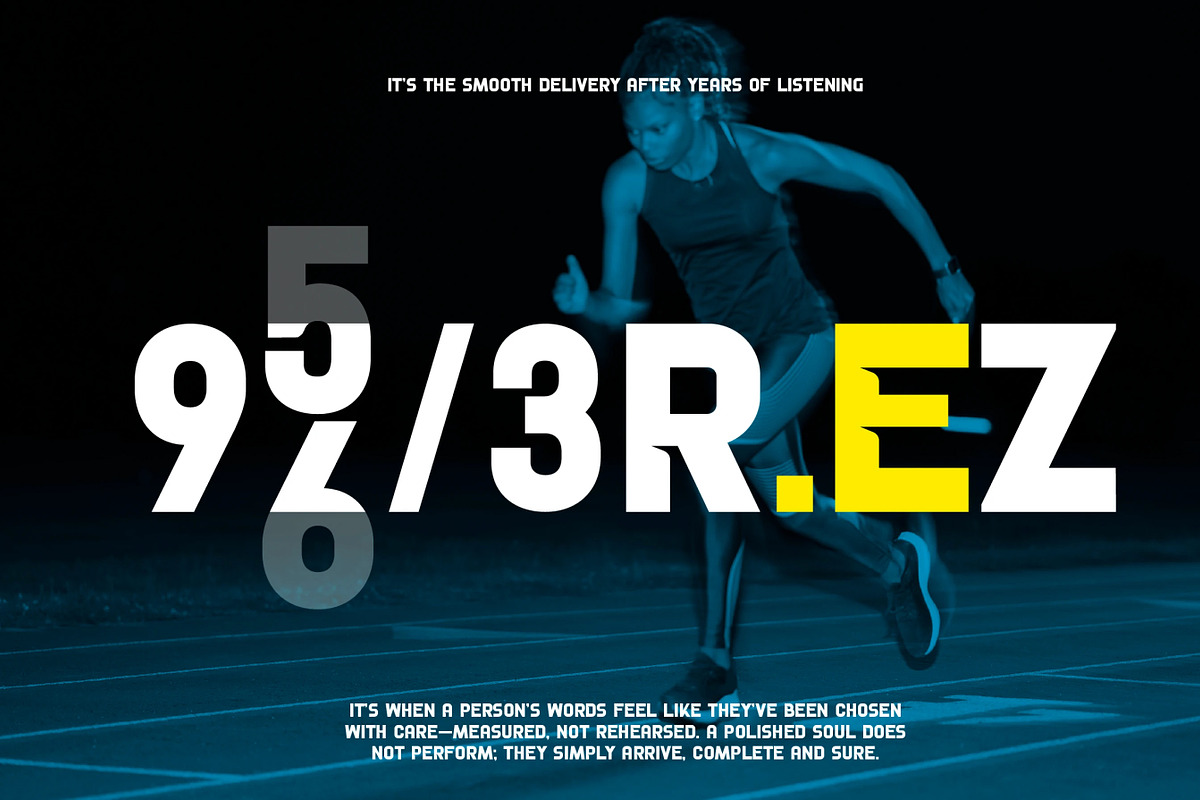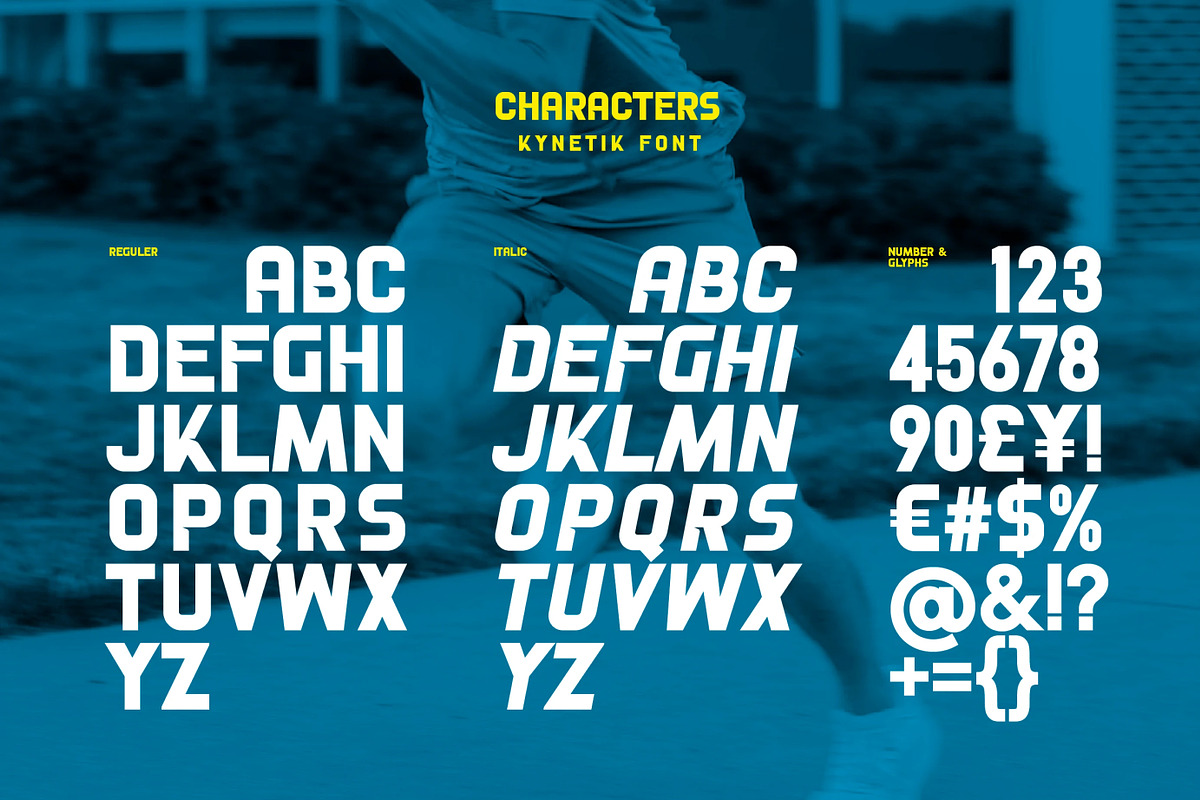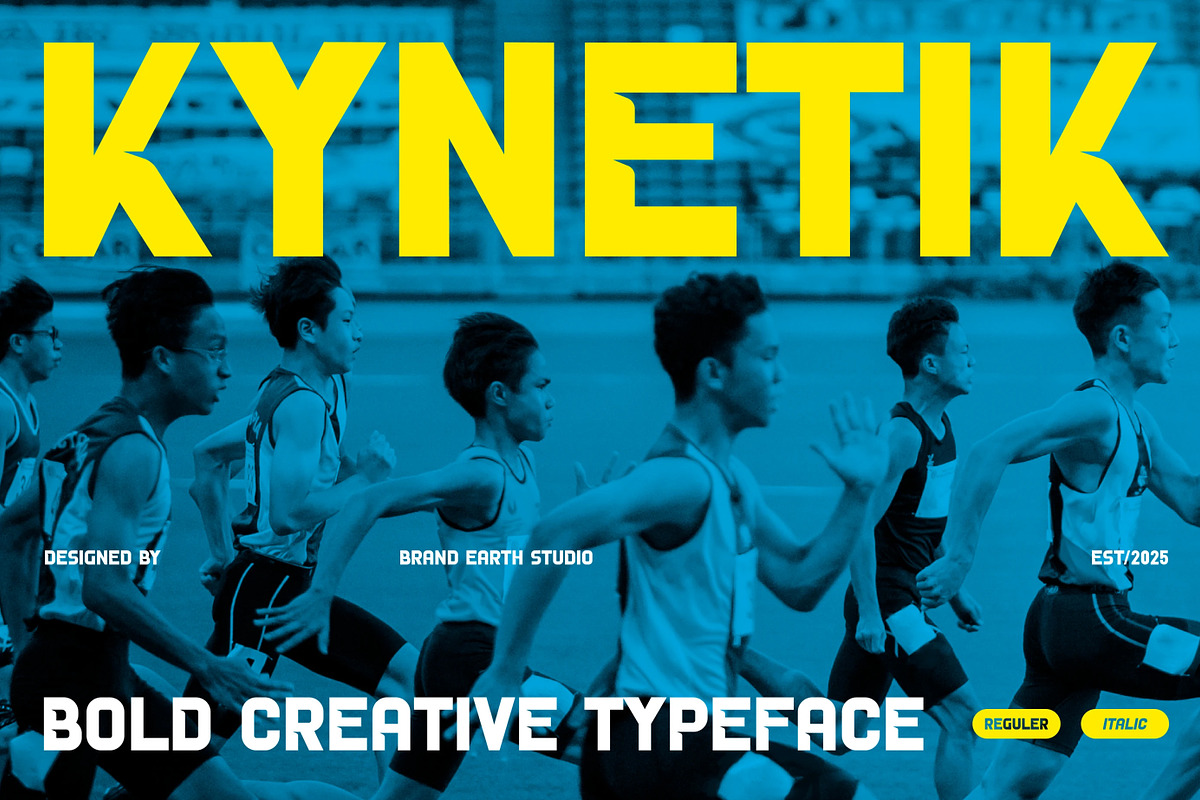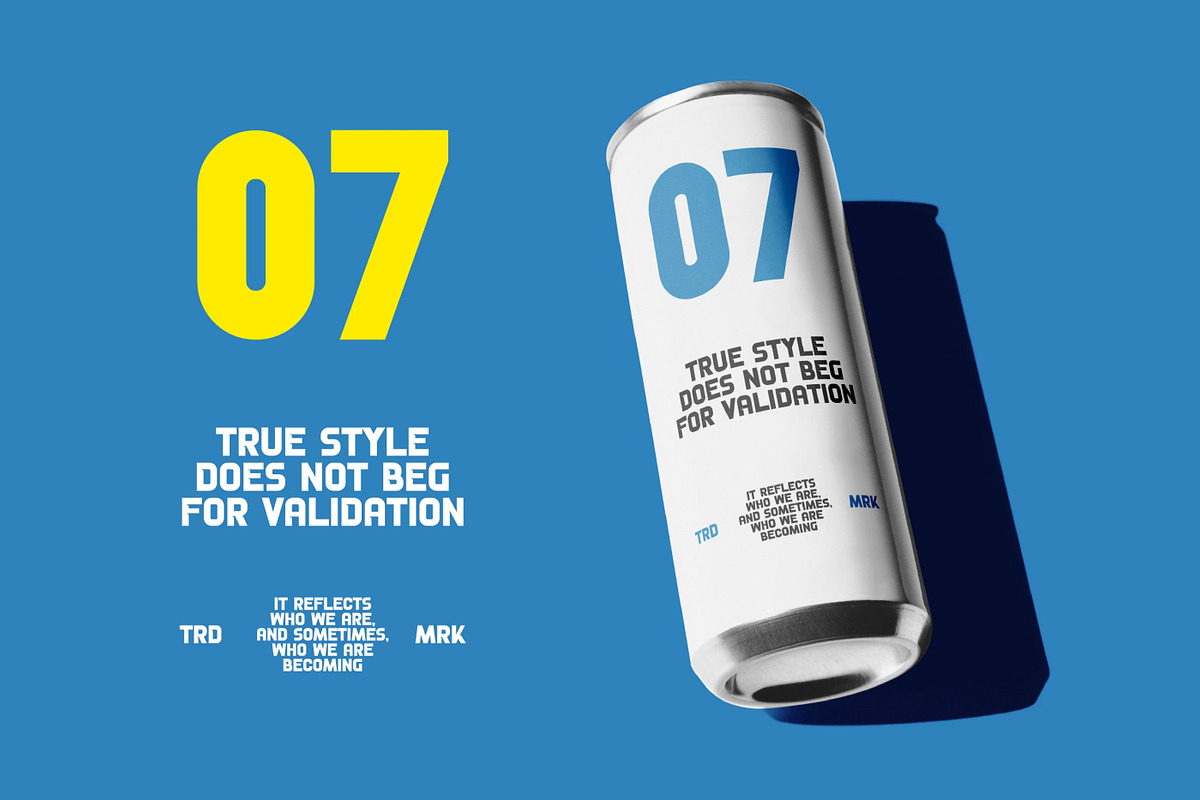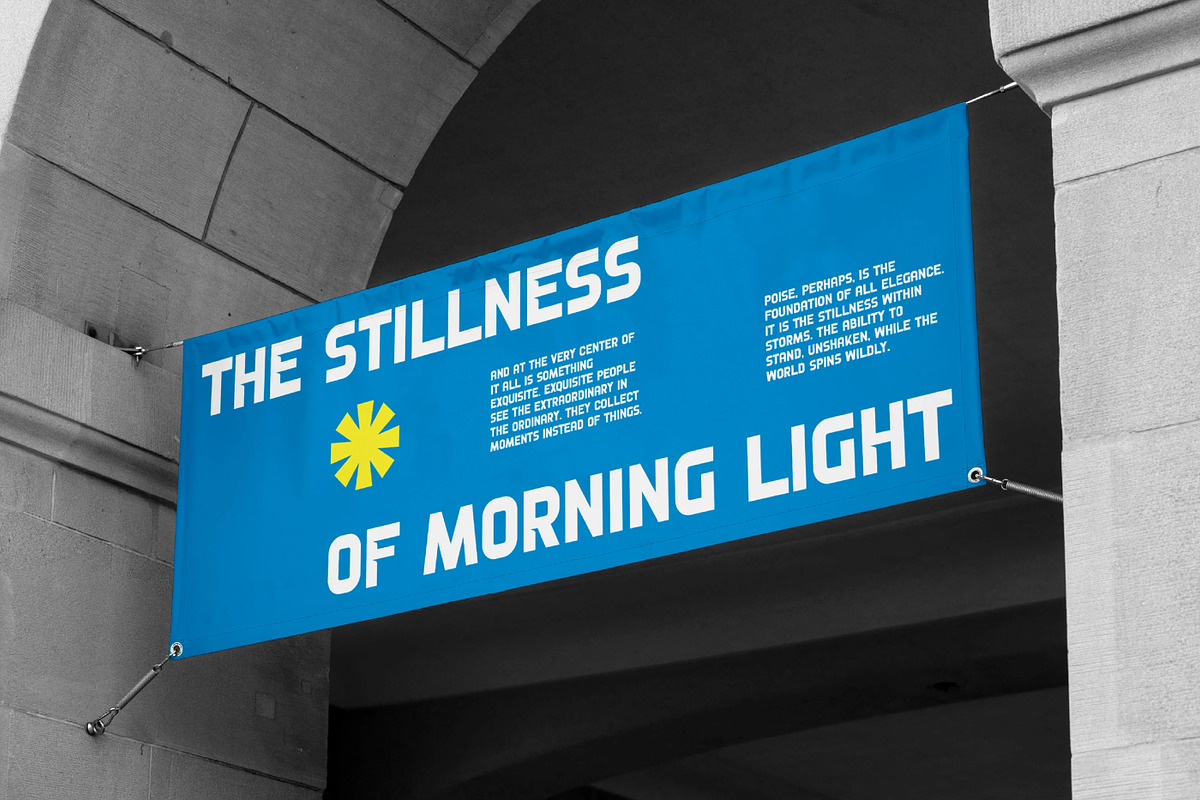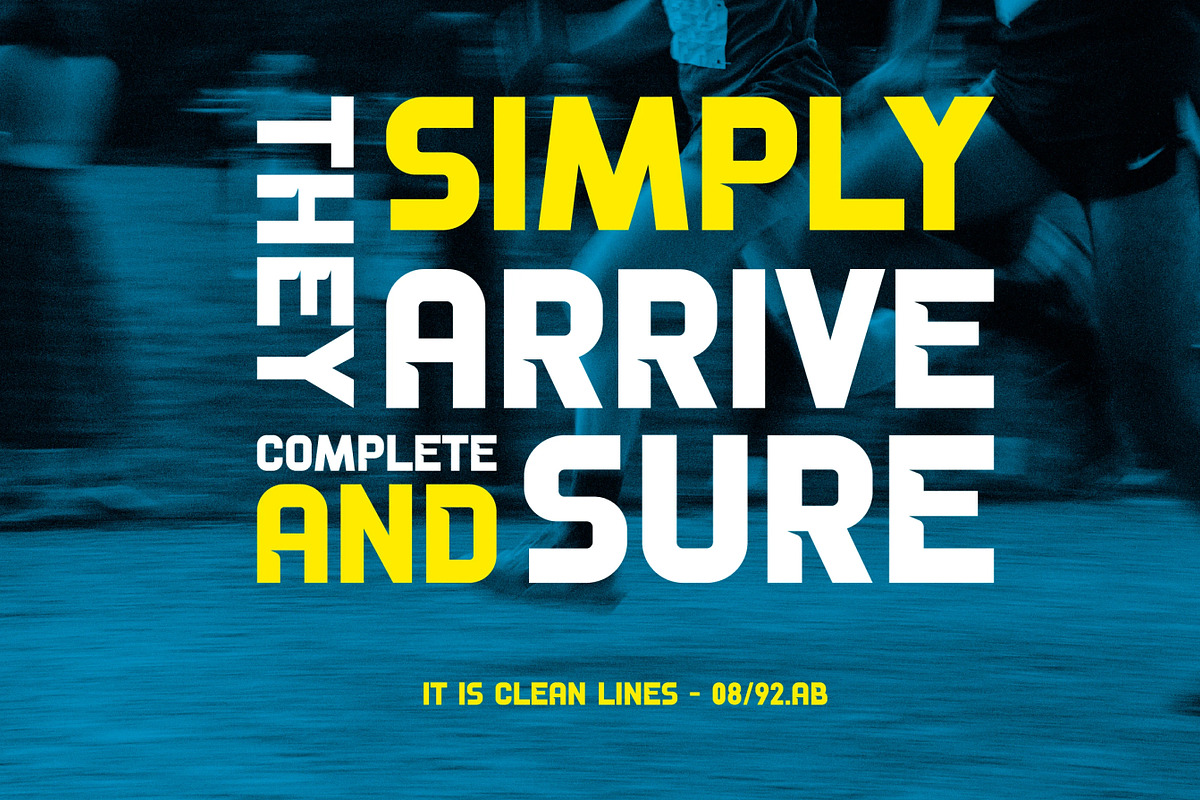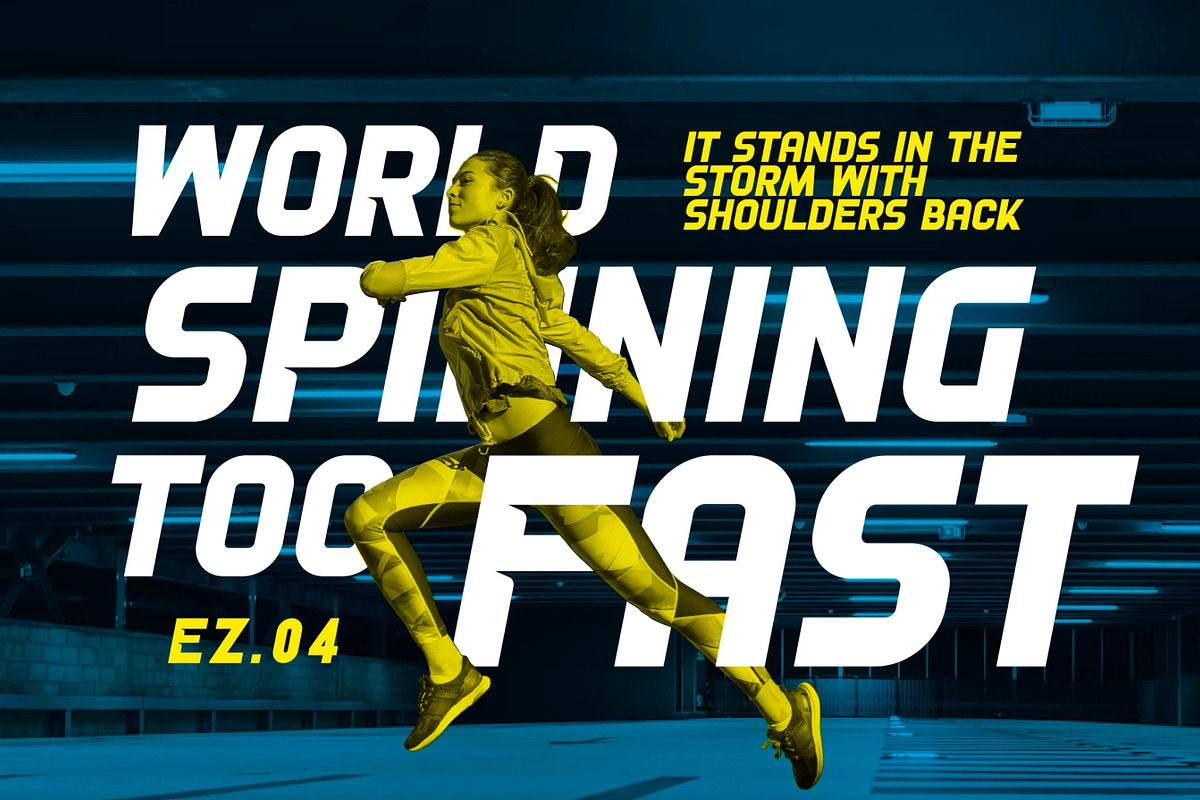
Kynetik - Bold Athletic Sans Serif
Kynetik is a bold and dynamic typeface inspired by speed, energy, and competitive spirit. Designed to capture motion and intensity, its energy is powerful, commanding, and performance-driven—perfect for those looking to energize their brand with a strong, athletic visual identity.
The letterforms in Kynetik feature powerful, blocky forms with clean cuts and strong lines that give the typeface a bold and dynamic rhythm. Its commanding presence and excellent readability make it perfect for headlines, athletic branding, posters, and digital campaigns.
With its sense of movement and strength, Kynetik bridges the gap between raw energy and modern clarity. It radiates intensity while remaining highly legible, making it ideal for sports themes, activewear designs, bold visual identities, and high-impact campaigns.
Main Features
Regular & Italic Font Style
Ligatures & Alternate
Numeral & Punctuations
Suitable For: sports branding, athletic wear design, posters, digital campaigns, headlines, activewear, bold visual identities, event promotion, merchandise, editorial layouts, fitness branding, motivational content.